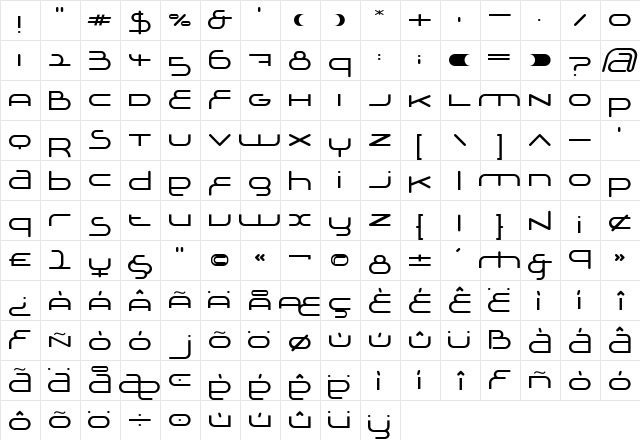
Adrenalin Medium Font Preview
Adrenalin Medium
Adrenalin Medium Font Details
Design Context for Adrenalin Typeface
Adrenalin is a composed and adaptable typeface that performs quietly and consistently across a wide range of design contexts.